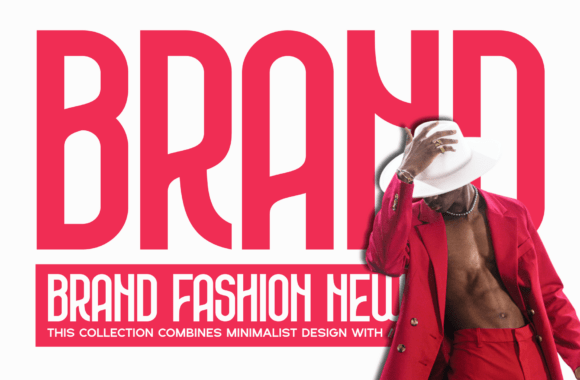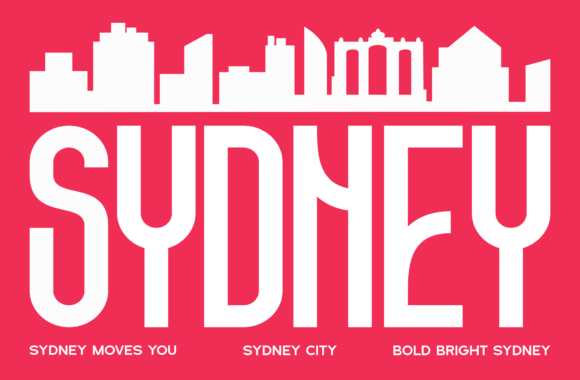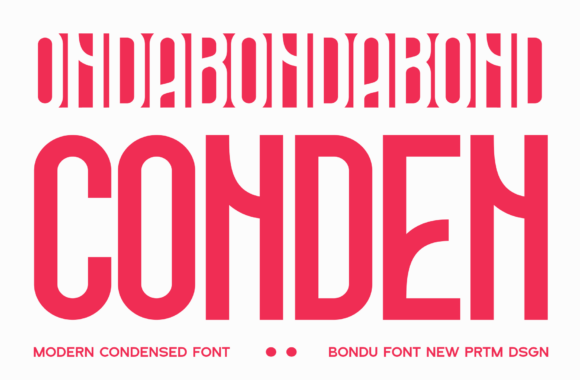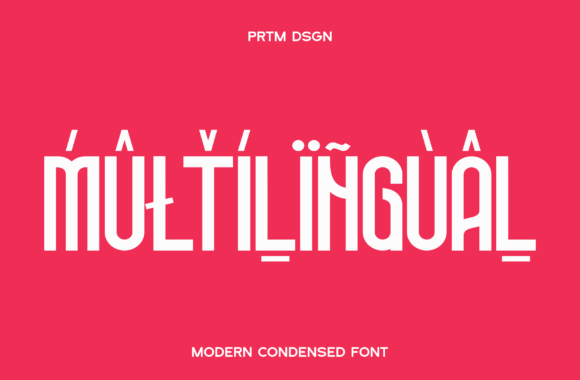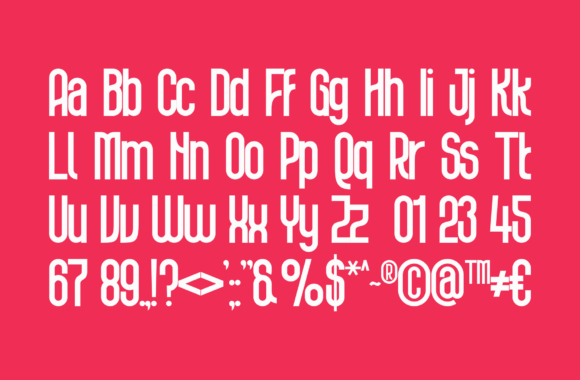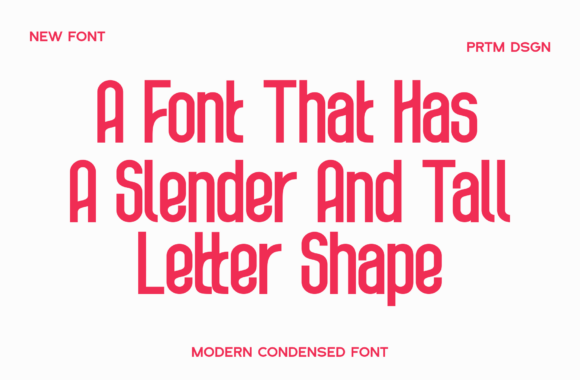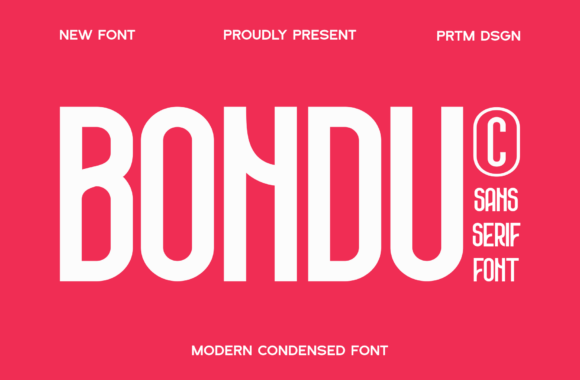
Introducing Bondu Font: The Ultimate Display Face for Bold and Efficient Design
In the world of typography, a font can make or break a design project. For designers who value bold efficiency, the Bondu font is a game-changer. This striking, high-impact display face is perfect for creating a powerful visual statement in movie posters, editorial headlines, tech-focused branding, and more.
What Makes Bondu Font Stand Out?
The Bondu font features ultra-condensed proportions and clean, sharp terminals that create a powerful vertical rhythm on the page. Its premier typeface design makes it the perfect solution for projects where space is at a premium, but impact is non-negotiable. Whether you’re building a modern corporate identity or a sleek streetwear logo, Bondu delivers a sense of strength, precision, and cutting-edge style that elevates any professional design project to a world-class level.
Key Features of Bondu Font
- Ultra-condensed proportions: Perfect for projects where space is limited, Bondu’s condensed design allows for maximum impact without sacrificing legibility.
- Clean, sharp terminals: The font’s sharp terminals create a powerful vertical rhythm on the page, making it perfect for headlines and titles.
- Heavy weight and tall x-height: Bondu’s heavy weight and tall x-height make it exceptionally legible for digital hero sections and social media banners that need to grab attention instantly.
How to Maximize the Potential of Bondu Font
To get the most out of the Bondu font, try pairing it with a wide-tracked light sans-serif to create a sophisticated visual contrast in your layouts. This contrast will add depth and visual interest to your design, making it more engaging and effective. Additionally, Bondu’s versatility makes it perfect for a wide range of design projects, from movie posters and editorial headlines to tech-focused branding and social media graphics.
Perfect for Digital and Print Design
Bondu font is perfect for both digital and print design. Its heavy weight and tall x-height make it exceptionally legible on digital screens, while its clean and sharp design ensures it looks great in print. Whether you’re designing a social media banner, a movie poster, or a business card, Bondu is the perfect choice.
Design Tips and Tricks
Here are some design tips and tricks to help you get the most out of the Bondu font:
- Use Bondu as a headline font: Bondu’s bold and condensed design makes it perfect for headlines and titles.
- Pair Bondu with a sans-serif font: Pairing Bondu with a wide-tracked light sans-serif font creates a sophisticated visual contrast that adds depth and visual interest to your design.
- Experiment with different colors: Bondu’s clean and sharp design looks great in a variety of colors, so don’t be afraid to experiment and find the perfect color scheme for your design.
In conclusion, the Bondu font is a powerful and versatile display face that is perfect for designers who value bold efficiency. Its ultra-condensed proportions, clean and sharp terminals, and heavy weight make it exceptionally legible and perfect for a wide range of design projects. Whether you’re building a modern corporate identity or a sleek streetwear logo, Bondu delivers a sense of strength, precision, and cutting-edge style that elevates any professional design project to a world-class level.